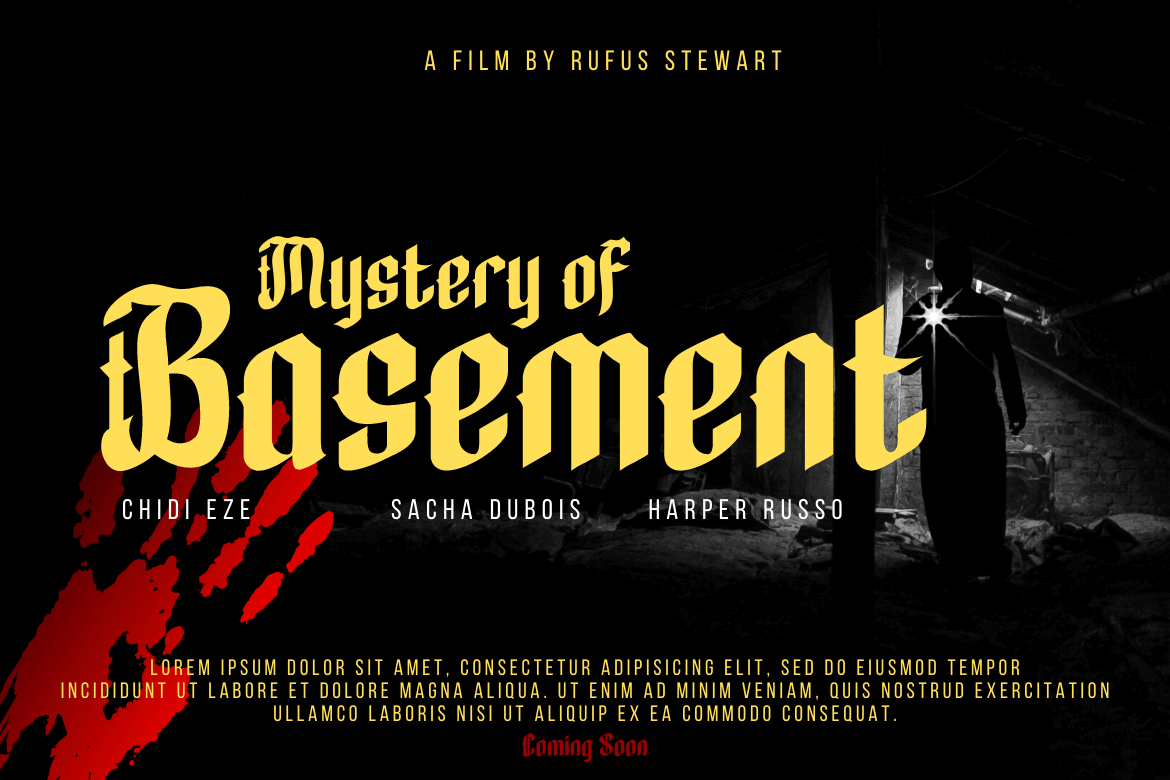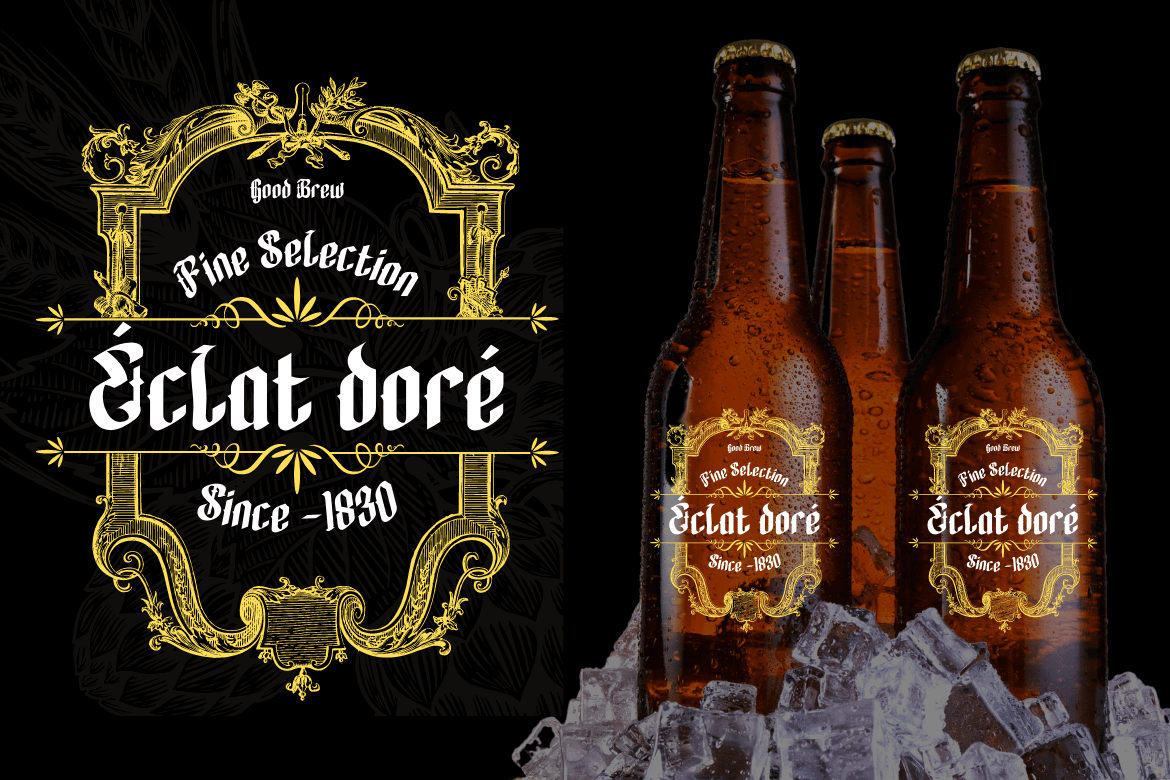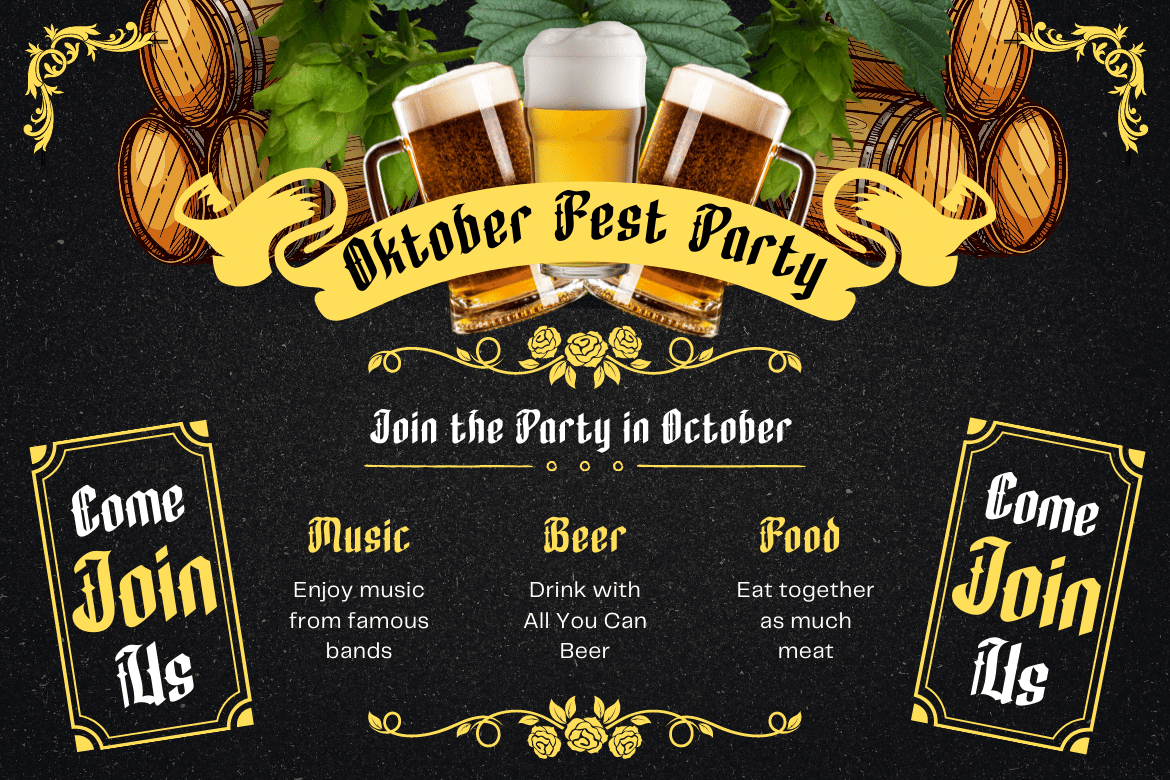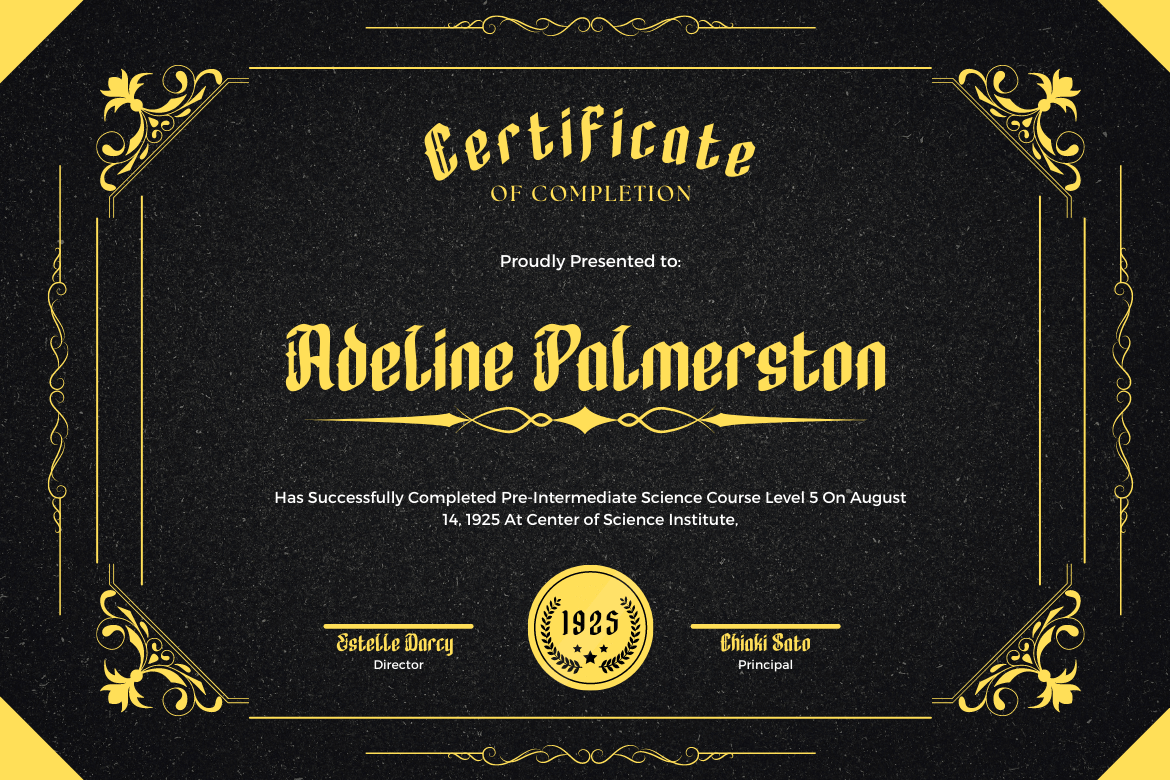
Gadevox Font
Gadevox Display Font
This is a vintage-inspired font, everything and more. It’s bold yet elegant, soft yet striking. It has an old-world feel that is still very modern and I know you will love the vintage details on each letter. This font will complement your visual project and make it stand out so make sure to have it today!